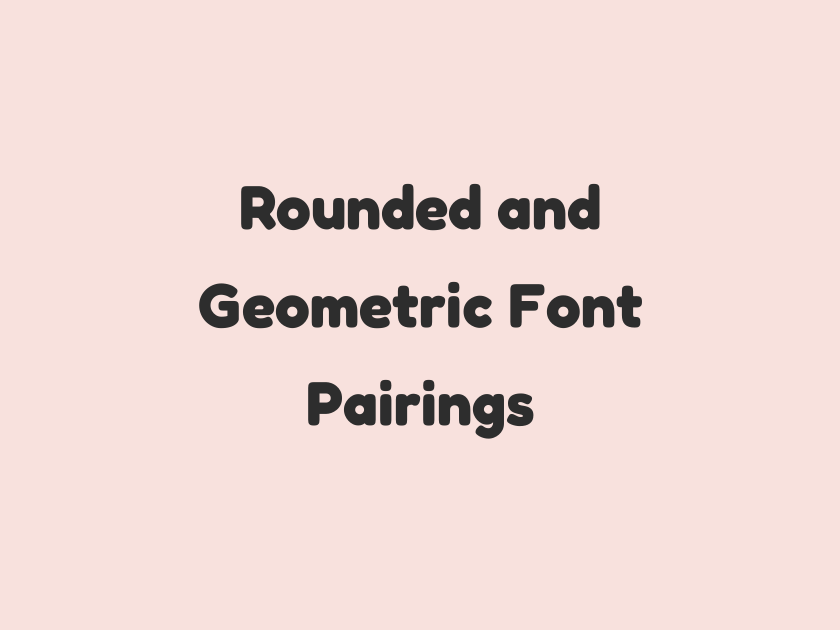
10 Best Rounded and Geometric Font Pairings
Rounded sans serifs bring warmth and approachability with their soft terminals, while geometric sans serifs offer precision built from circles, squares, and consistent stroke widths. Pairing the two lets a headline feel friendly or bold while the body copy stays crisp and structured, or vice versa. These Google Fonts pairings work because the underlying geometry (circular bowls, even weight distribution, similar x-heights) still lines up even as the mood shifts from soft to sharp.
1. Fredoka + DM Sans
Fredoka’s bouncy, fully rounded letterforms give headlines an instant sense of friendliness, and DM Sans keeps that energy grounded with its low-contrast, geometric structure and excellent small-size legibility. The combination suits children’s brands, community platforms, and any product that wants to feel approachable without losing polish.
2. Poppins + Nunito
Poppins is built almost entirely from perfect circles, so its headlines feel confident and modern, while Nunito softens the reading experience with rounded terminals that reduce visual fatigue over longer passages. This pairing works well for wellness apps, lifestyle blogs, and onboarding flows where clarity and comfort both matter.
3. Baloo 2 + Outfit
Baloo 2 carries real heft in its rounded strokes, making it a strong choice for playful, attention-grabbing headlines, and Outfit’s restrained geometric forms step back just enough to let that boldness breathe. Expect this combination on product packaging, kids’ apps, and casual food or beverage branding.
4. Montserrat + Quicksand
Montserrat’s geometric precision gives headlines a confident, architectural feel, and Quicksand’s rounded strokes introduce just enough softness in the body text to keep the layout from feeling cold. This pairing fits wellness brands, boutique studios, and editorial sites aiming for a balance of order and warmth.
5. Josefin Sans + Comfortaa
Both of these fonts are built on genuinely circular geometry, so pairing Josefin Sans as a headline face with Comfortaa underneath creates a shared visual rhythm rather than a jarring contrast. It reads as sophisticated and slightly retro, a good fit for design studios, boutique retailers, or fashion-adjacent branding.
6. Varela Round + Jost
Varela Round softens headlines with its evenly weighted, rounded strokes, and Jost brings a Bauhaus-inspired geometric discipline to the body copy that keeps everything legible at smaller sizes. This works nicely for architecture portfolios, modern retail sites, and any brand referencing early twentieth century design.
7. Raleway + M PLUS Rounded 1c
Raleway’s thin, elegant geometric forms give headlines a fashion-forward edge, and M PLUS Rounded 1c answers with soft, evenly spaced letterforms that keep body text comfortable to read across devices. It suits beauty brands, editorial features, and interfaces that want refinement without feeling distant.
8. Chewy + Urbanist
Chewy is a novelty rounded display face with real character, so it needs a body font with enough restraint to keep pages readable, which is exactly what Urbanist’s clean geometric structure provides. This pairing shows up well in party invitations, casual food branding, and youth-focused apps.
9. Bubblegum Sans + Questrial
Bubblegum Sans leans hard into rounded, hand-drawn playfulness, so contrasting it with the understated geometry of Questrial keeps the overall page from feeling overwhelming. This combination fits children’s products, event pages, and casual entertainment brands that want personality up top and clarity below.
Tips for pairing rounded and geometric fonts
Save the roundest, most playful display faces for short headlines only; let a geometric sans carry the reading weight in longer paragraphs.
Check that both fonts share a similar x-height so lines of body text don’t feel uneven when set near a display headline.
If a rounded font feels too soft for a project, look for one described as “geometric rounded” like Comfortaa, which splits the difference between the two styles.